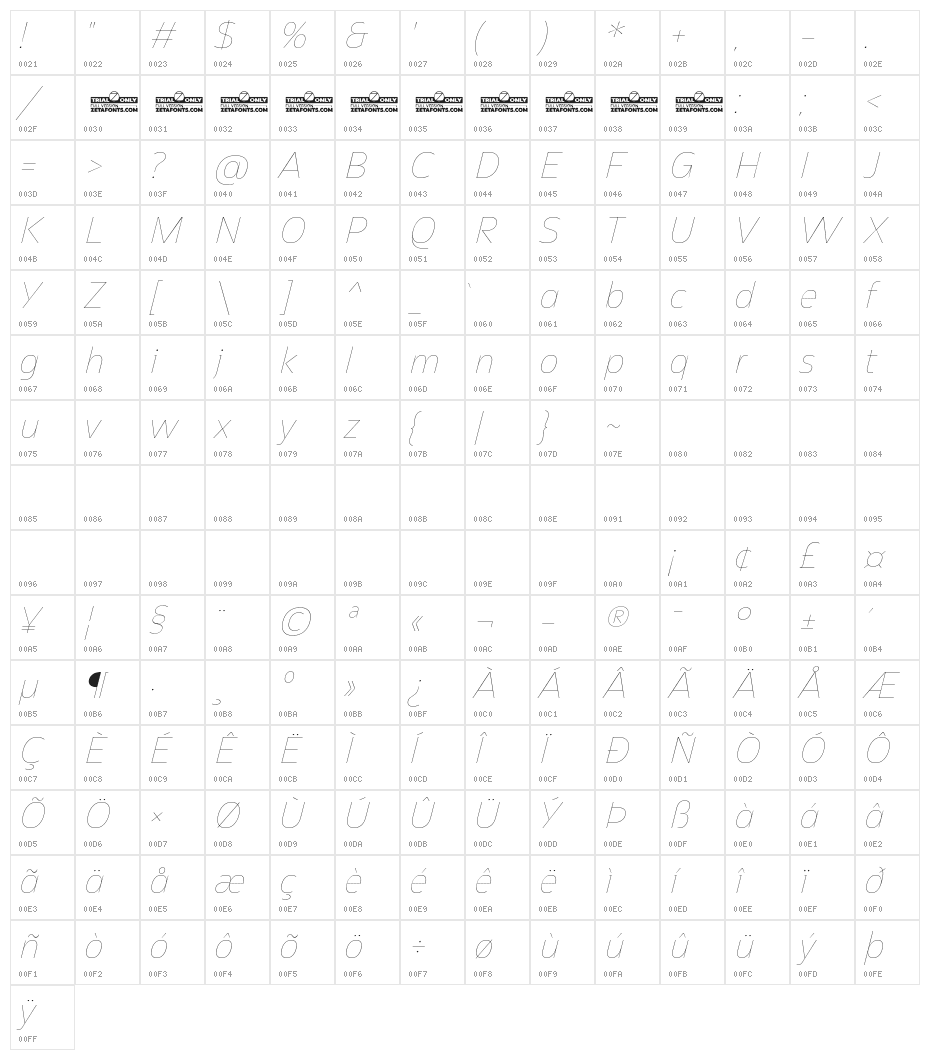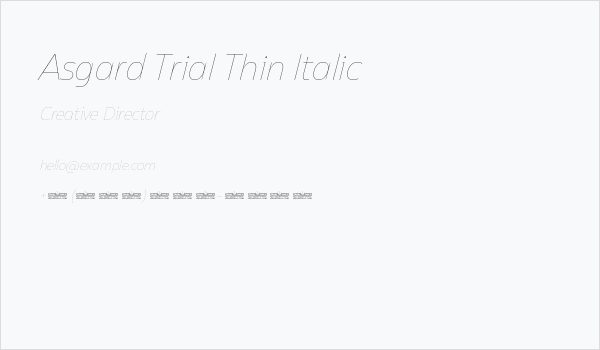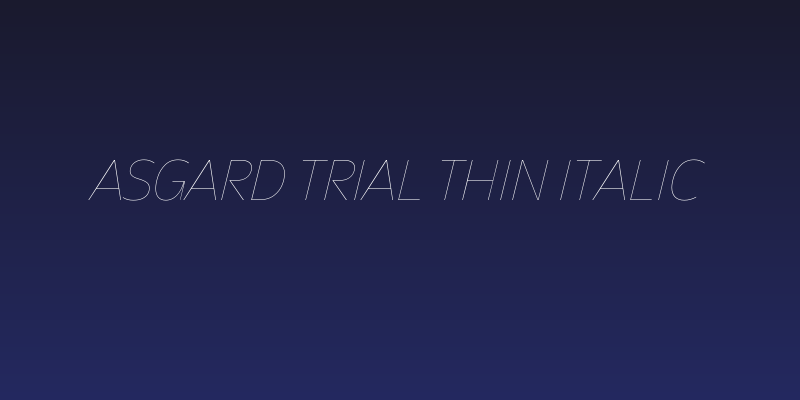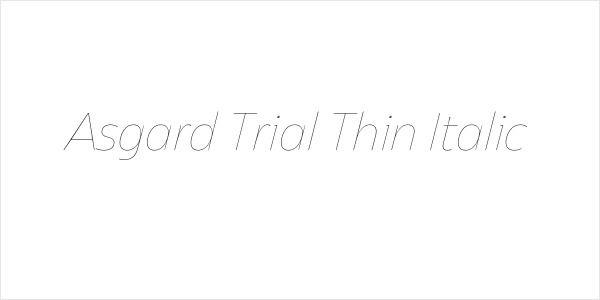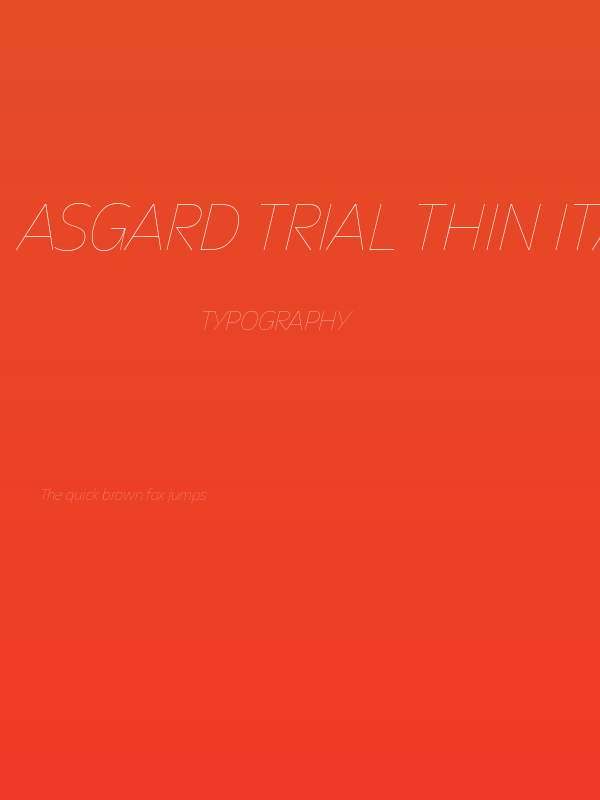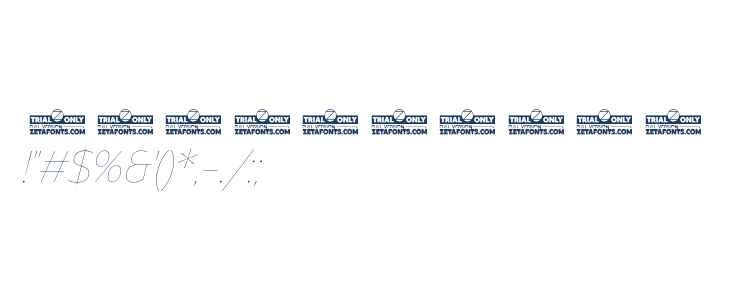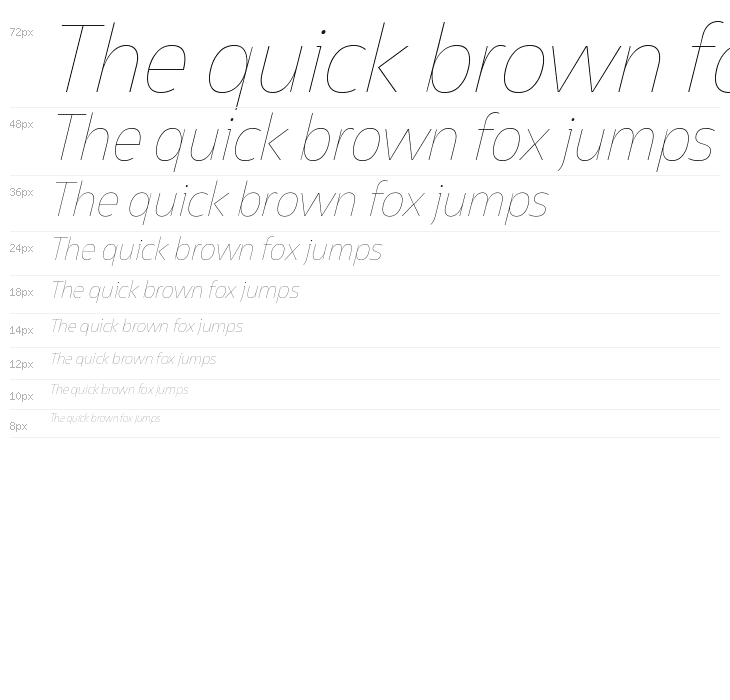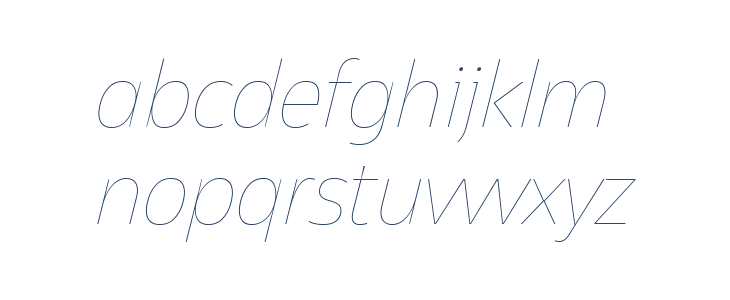
Asgard Trial Thin Italic Font
Asgard Trial Thin Italic Description
This font exhibits a sleek and modern design with a thin, elegant stroke. The italicized style adds a dynamic and sophisticated touch, making it suitable for contemporary projects. The characters are slightly slanted, enhancing the sense of motion and fluidity. The thin lines contribute to a minimalist aesthetic, ideal for clean and uncluttered designs. The font maintains a consistent stroke width throughout, providing a uniform appearance. Its simplicity and elegance make it versatile for various applications, from digital to print media.
| Proposed Projects | Ideal for fashion magazines, modern branding, elegant invitations, and minimalist web design. |